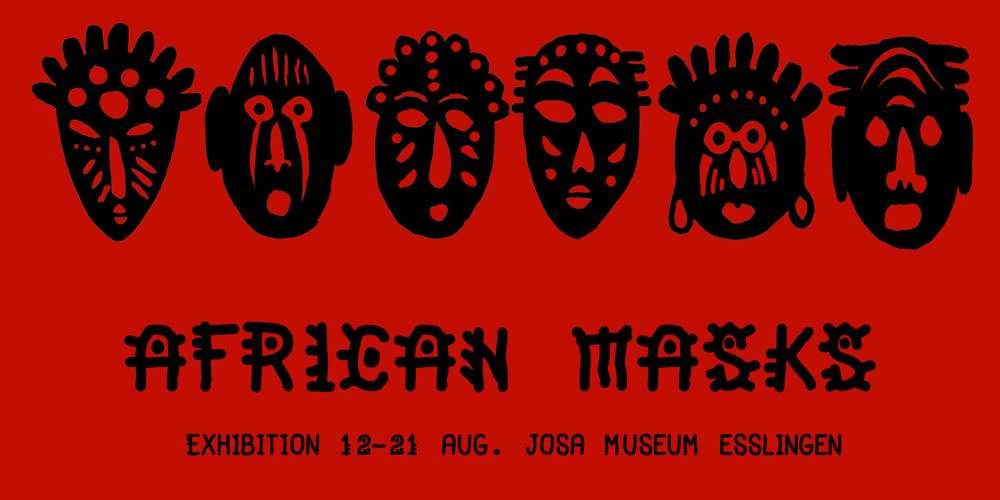
Bamana Font Family was designed by Joachim Frank and published by Joachim Frank. Bamana contains 1 styles and family package options. Bamana is a font for posters, flyers, headings, logos. Based on African patterns like Adrinka, it is an unusual font, but still powerful and graphic.